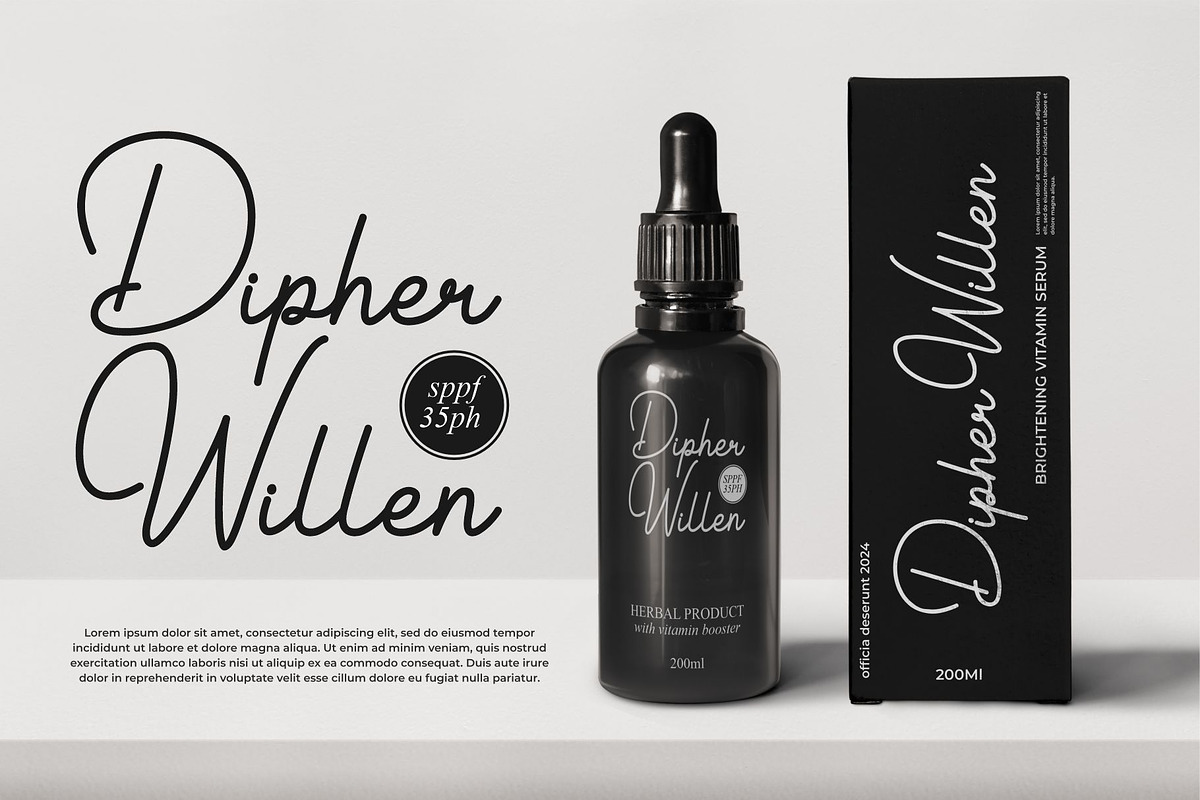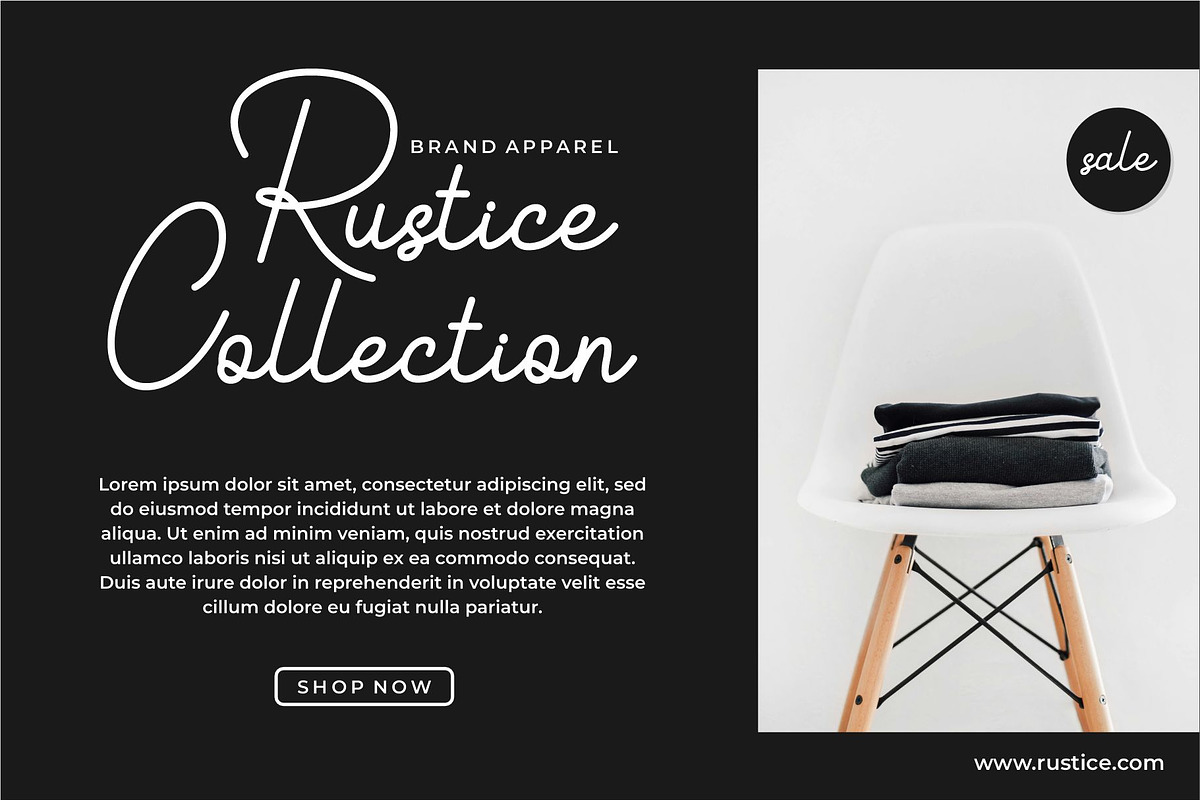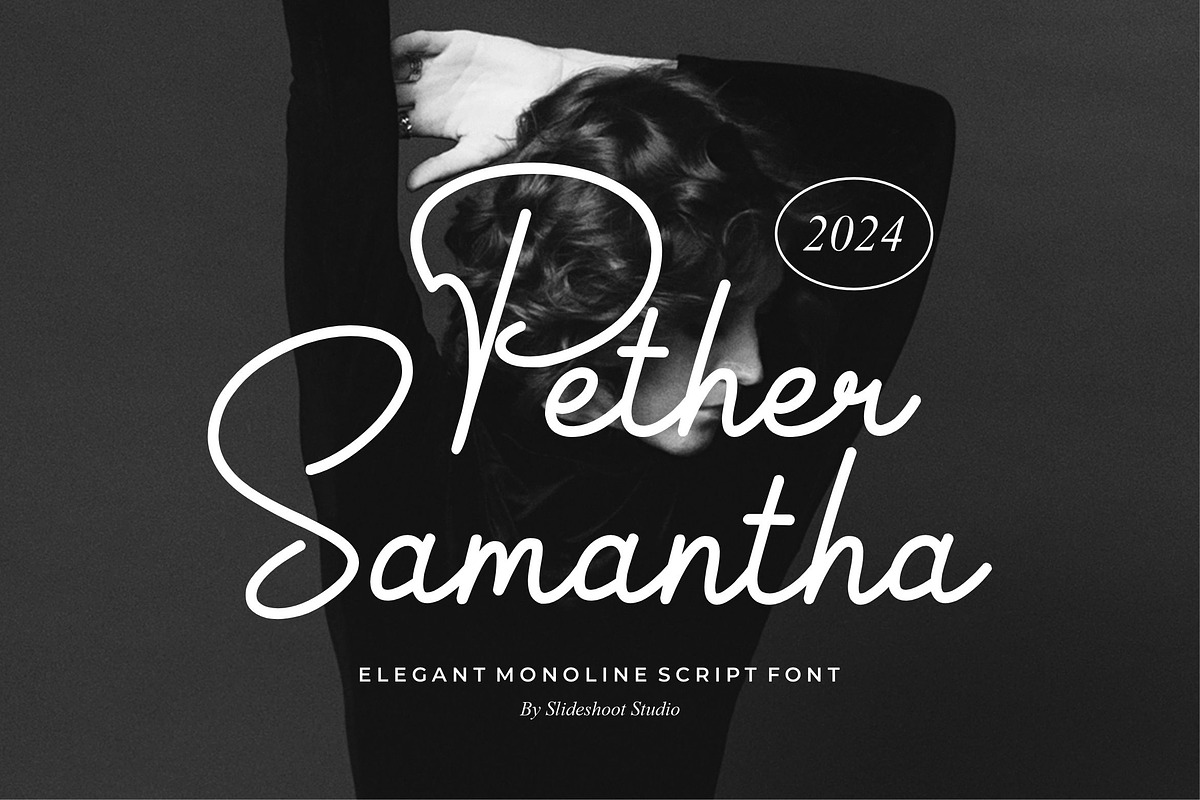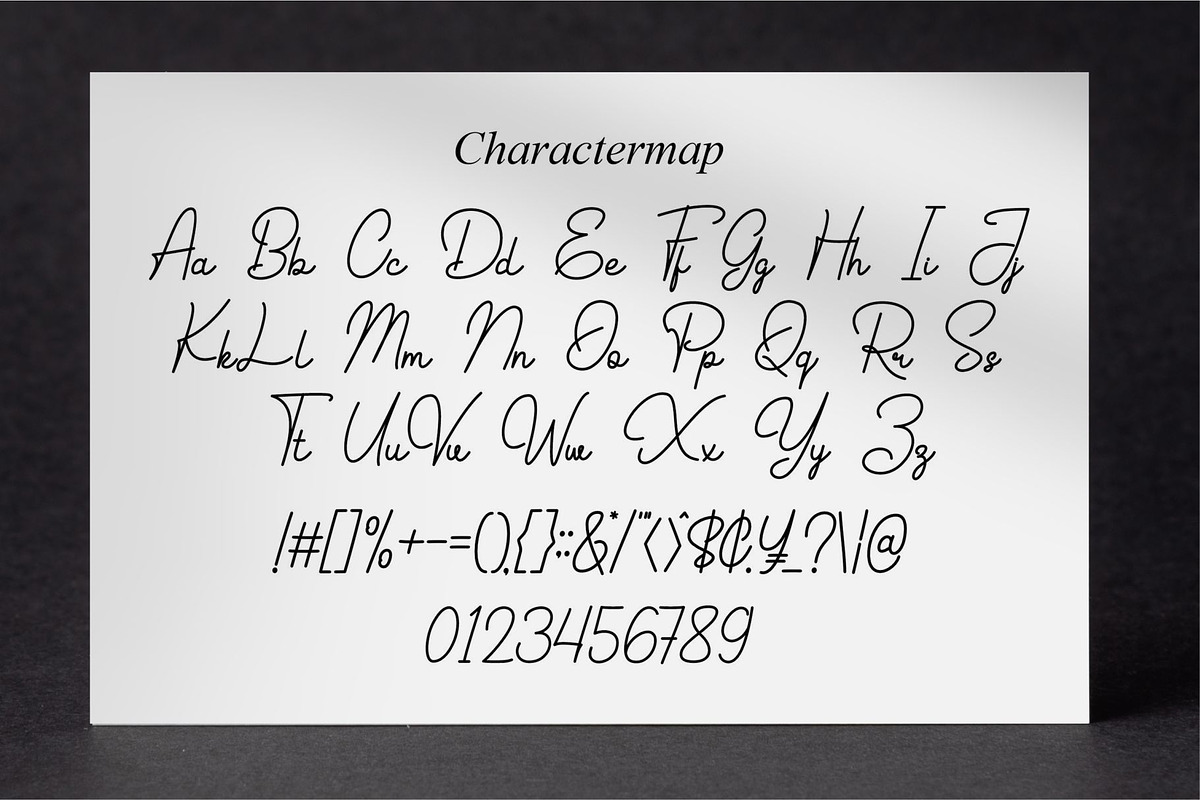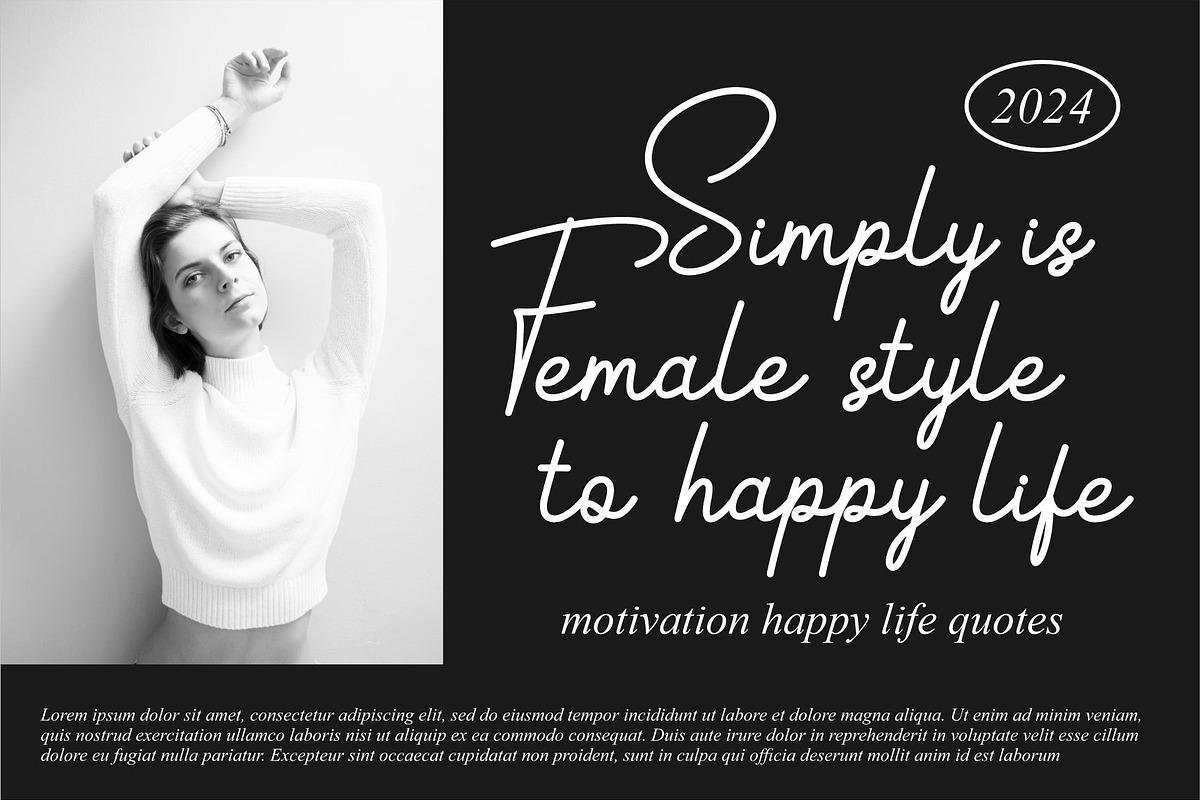
Pether Samantha || Elegant Script
Hello everyone, I would like to introduce Pether Samantha a handwritten font with a casual and elegant style.
Pether Samantha can also be used for a variety of projects such as branding, labels, photography, invitations, stationery, wedding designs, social media posts, advertising, product packaging, product design and other awesome projects.